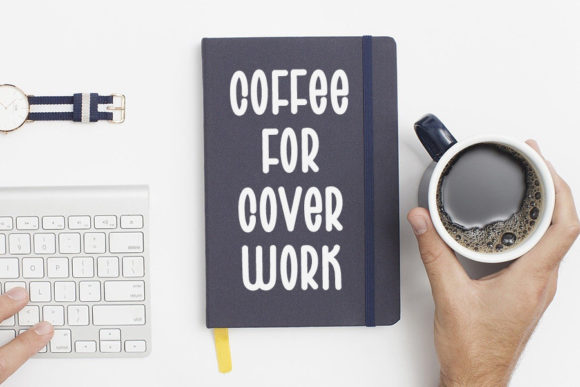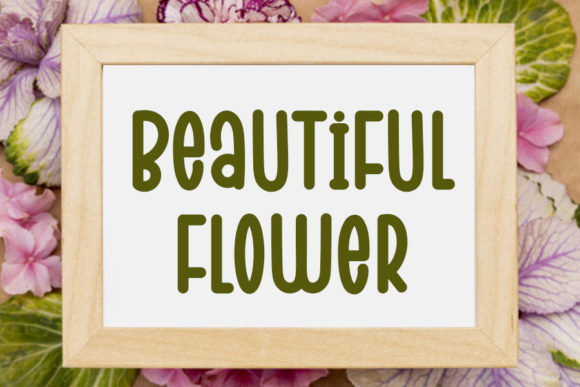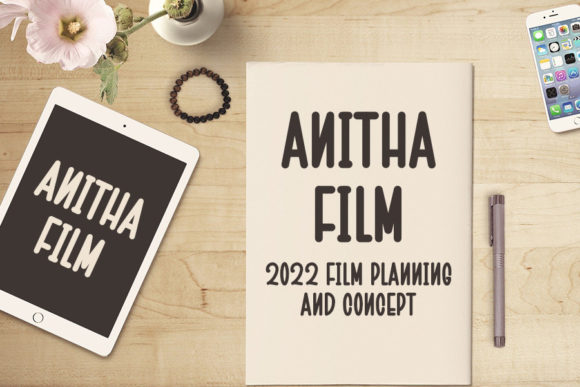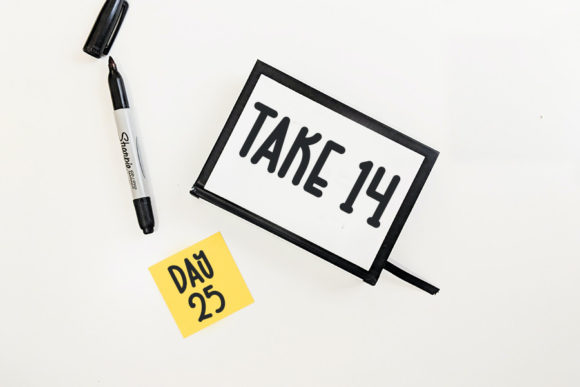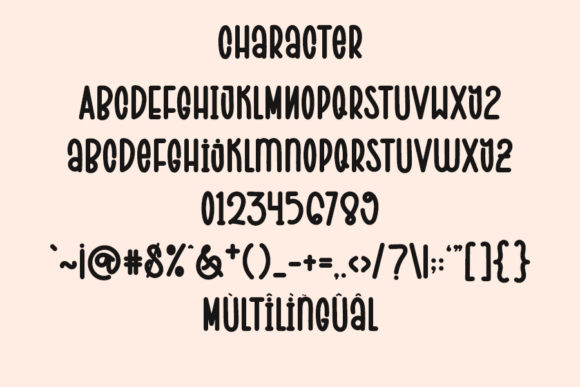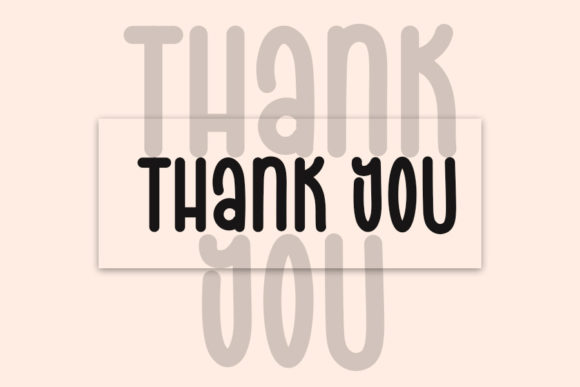
Hobbies Love You Font
About Hobbies Love You Font
Hobbies Love You is a playful and smart-looking handwritten font. It is the best choice for creating eye-catching logos, branding, and quotes. Every letter has a unique and beautiful touch, which will make your design come alive!